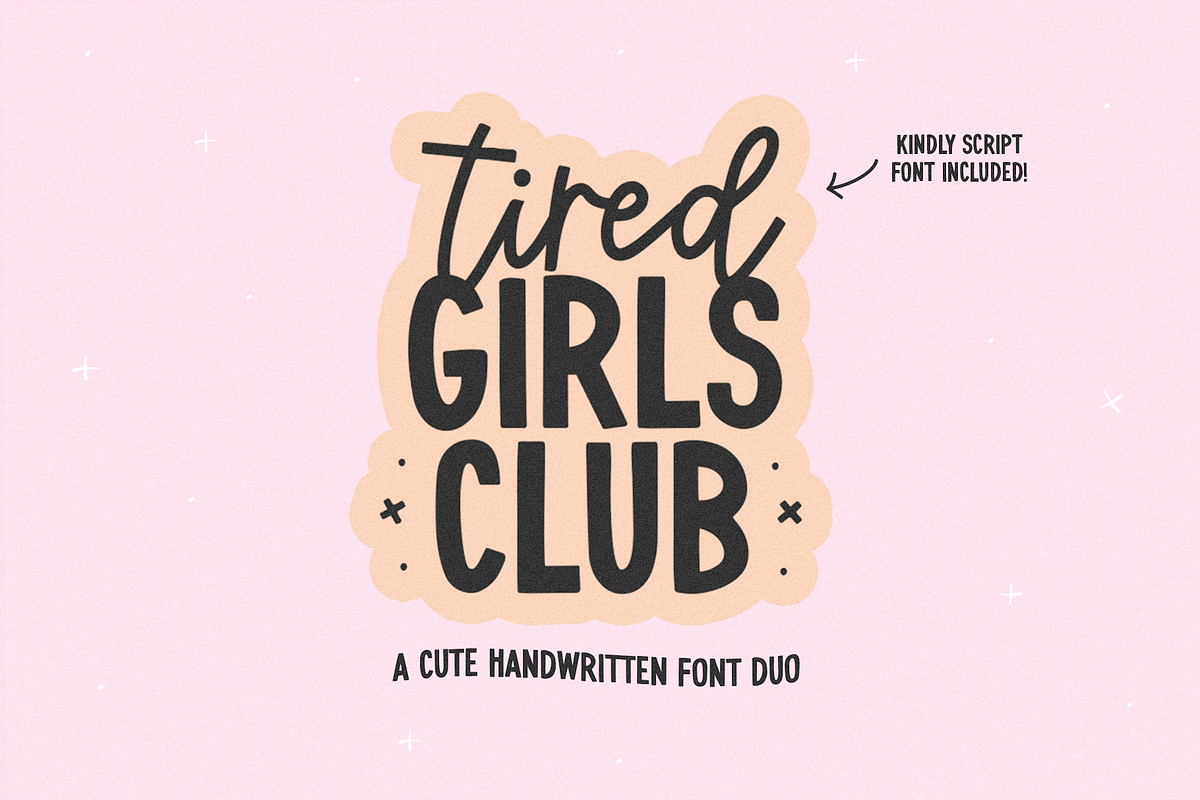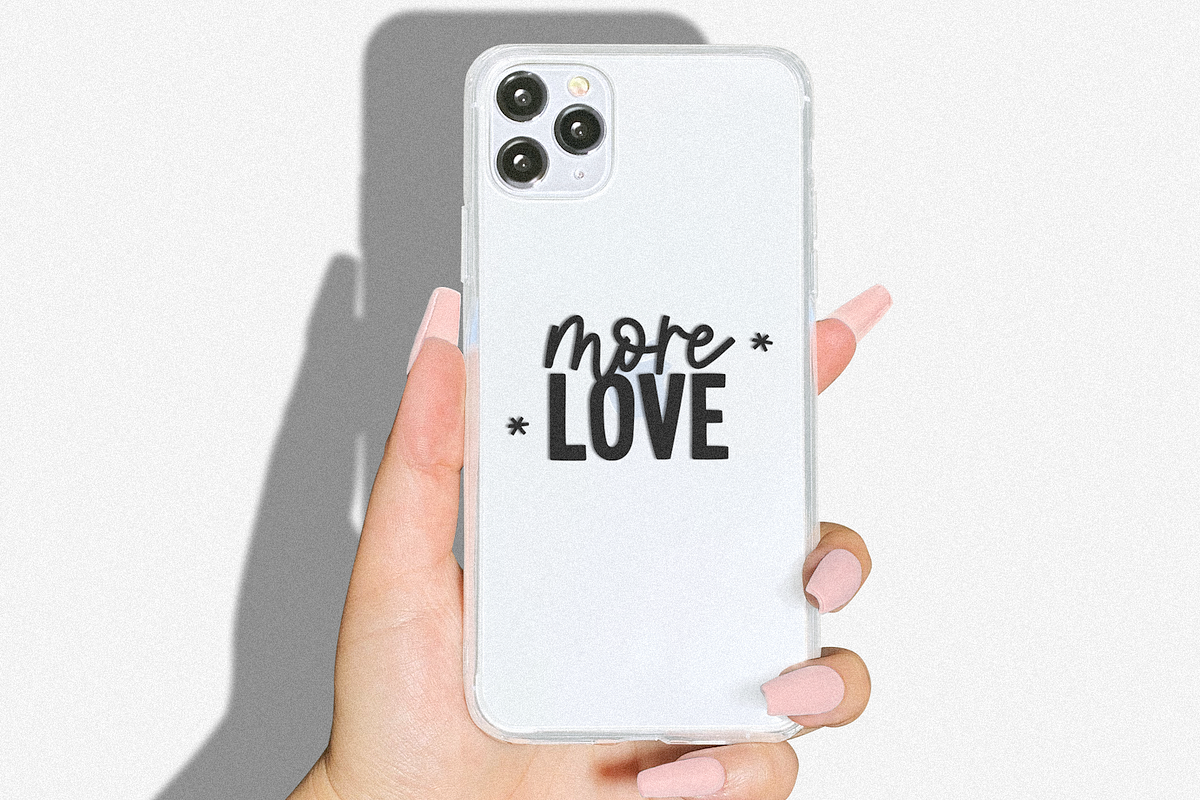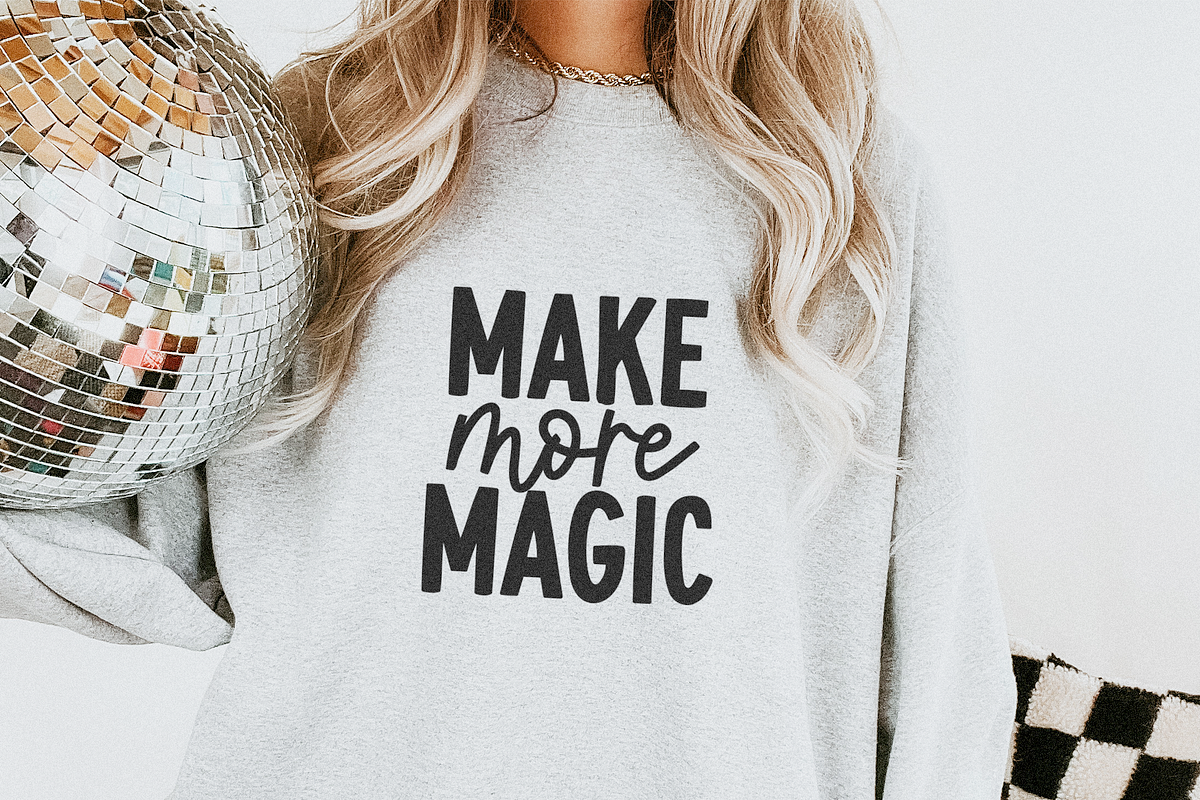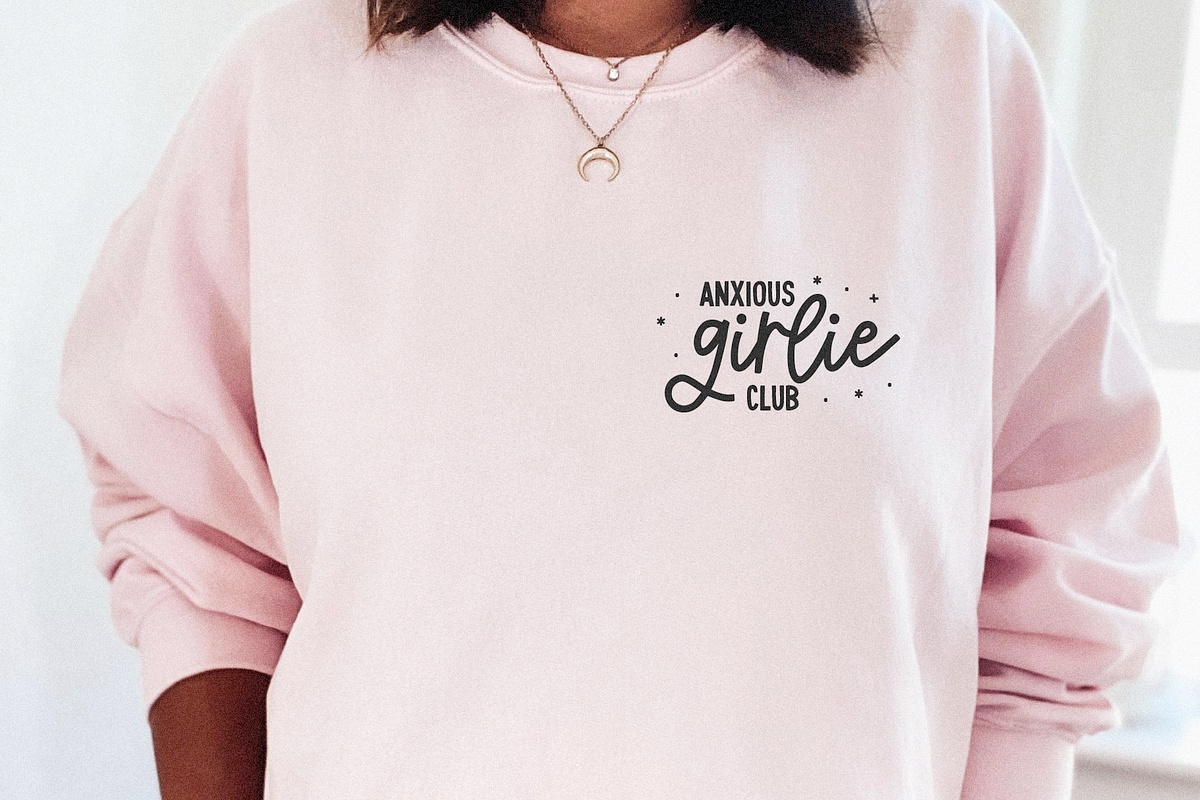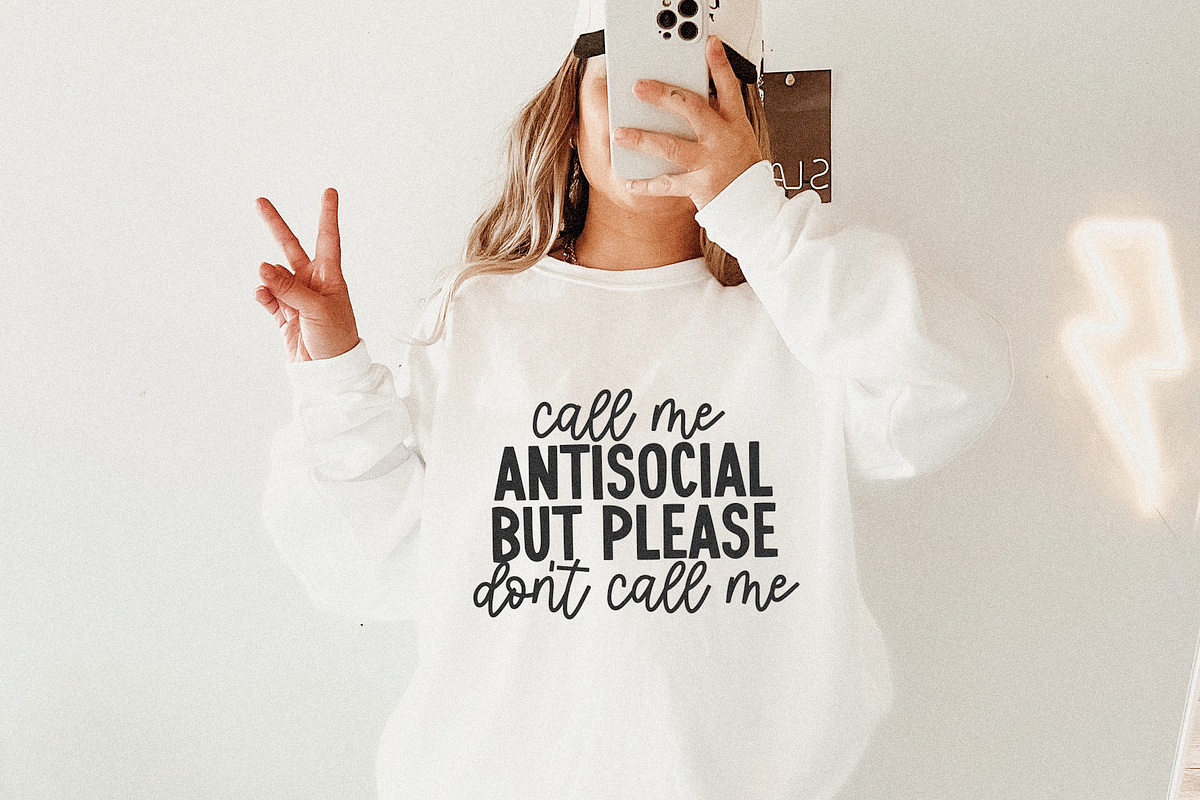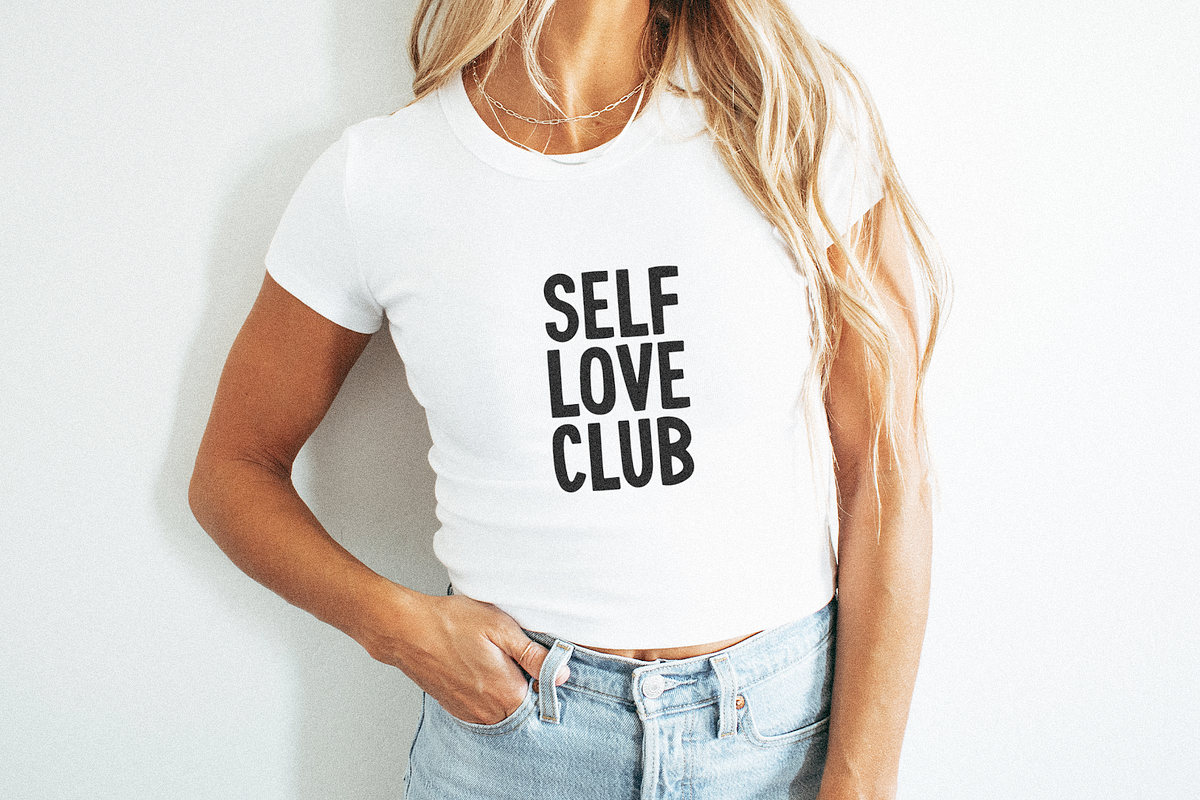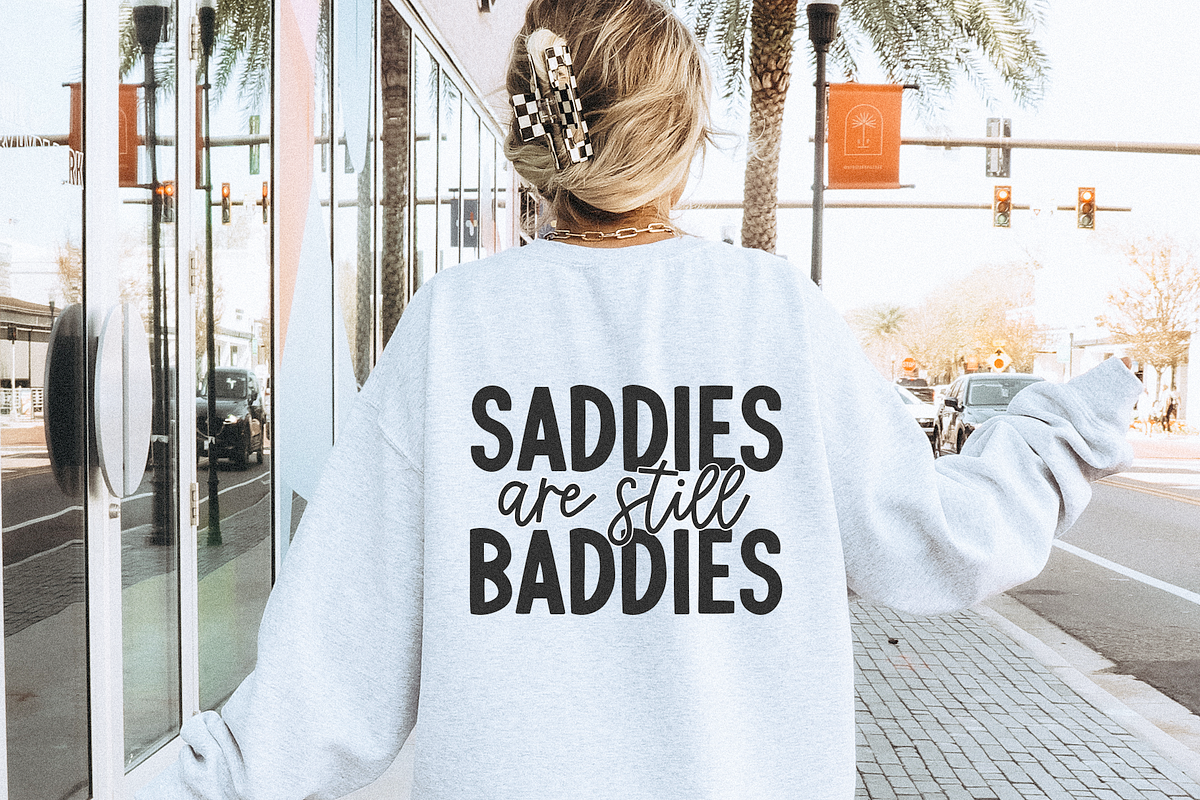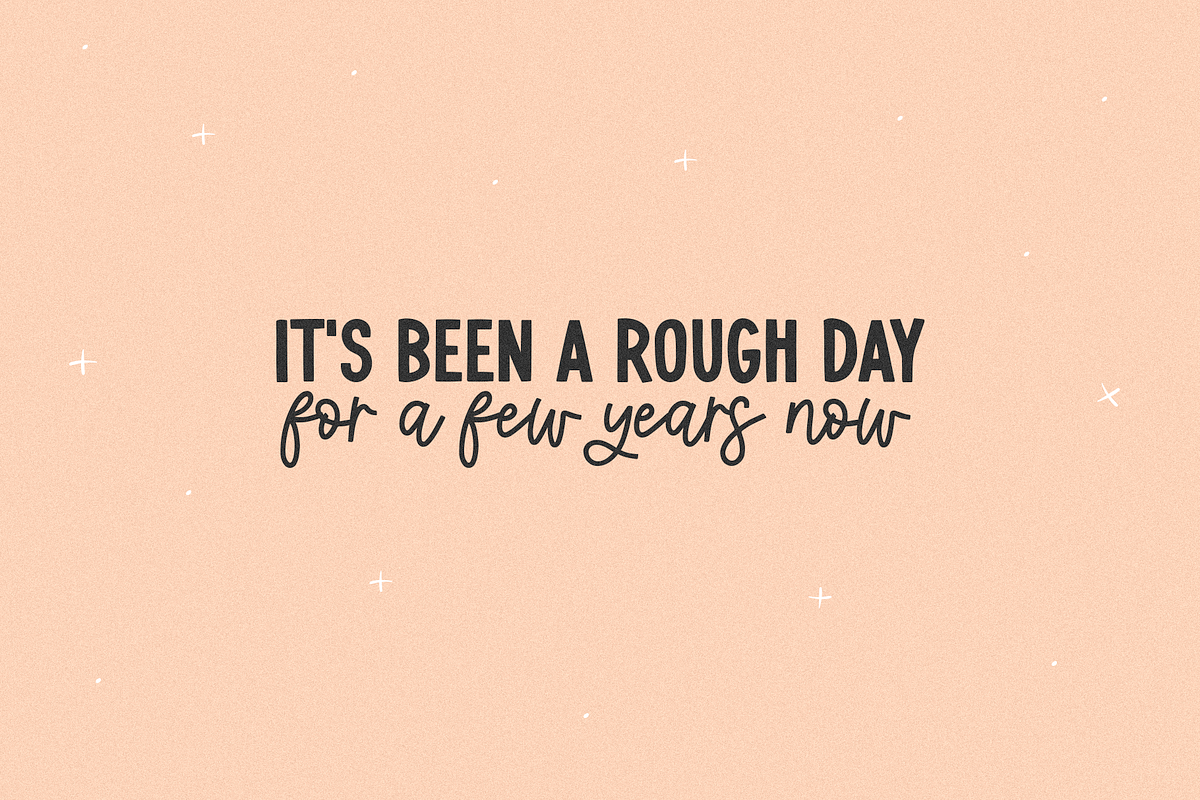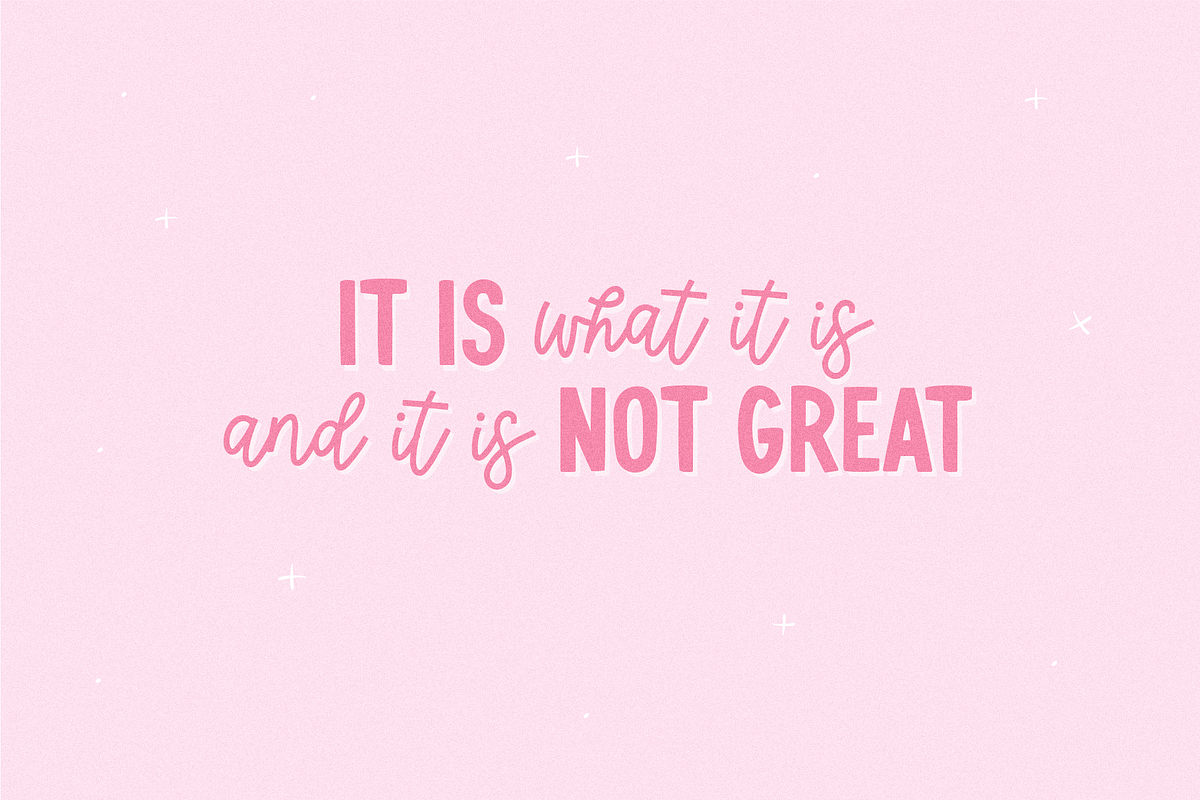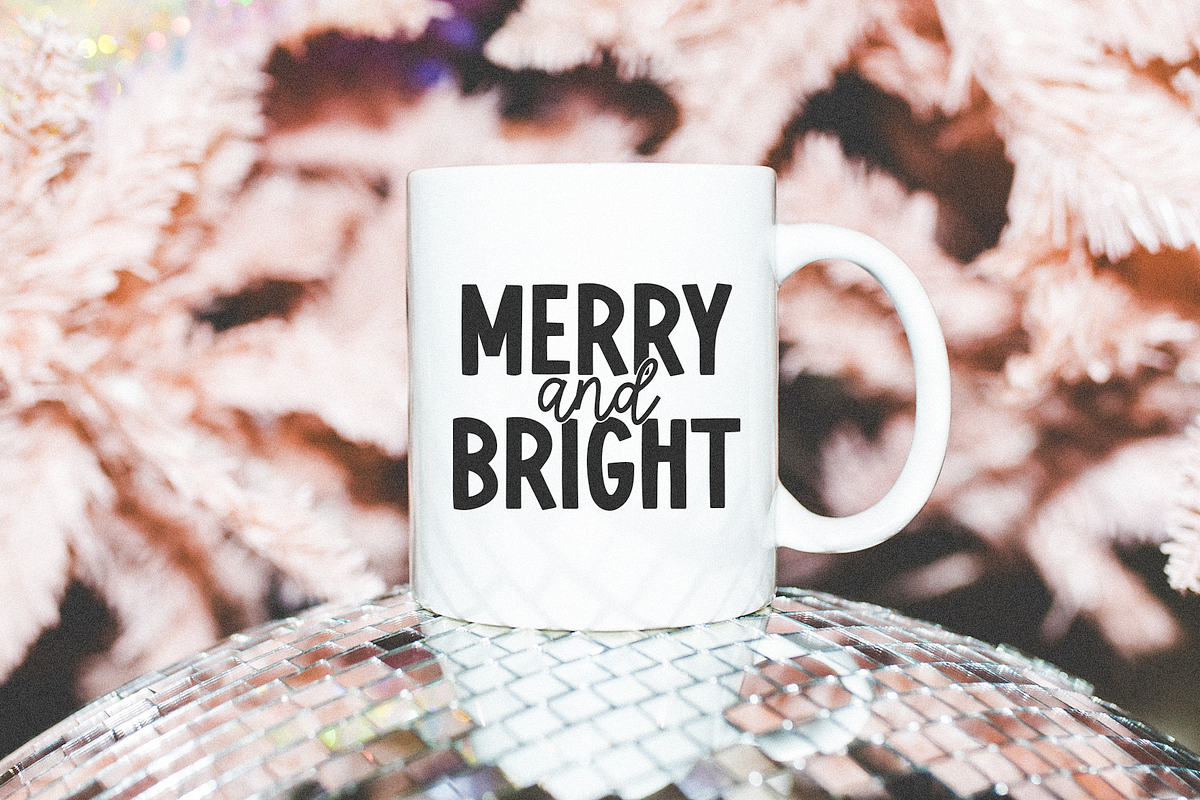
Tired Girls Club | Cute Font Duo
Tired Girls Club Font Duo is a cute handwritten pair that is perfect for quotes, shirts, social media, svg files, logos, retro designs, hats, mugs, and more!
This listing includes a bonus script font (Kindly) to pair up with The Tired Girls Club.